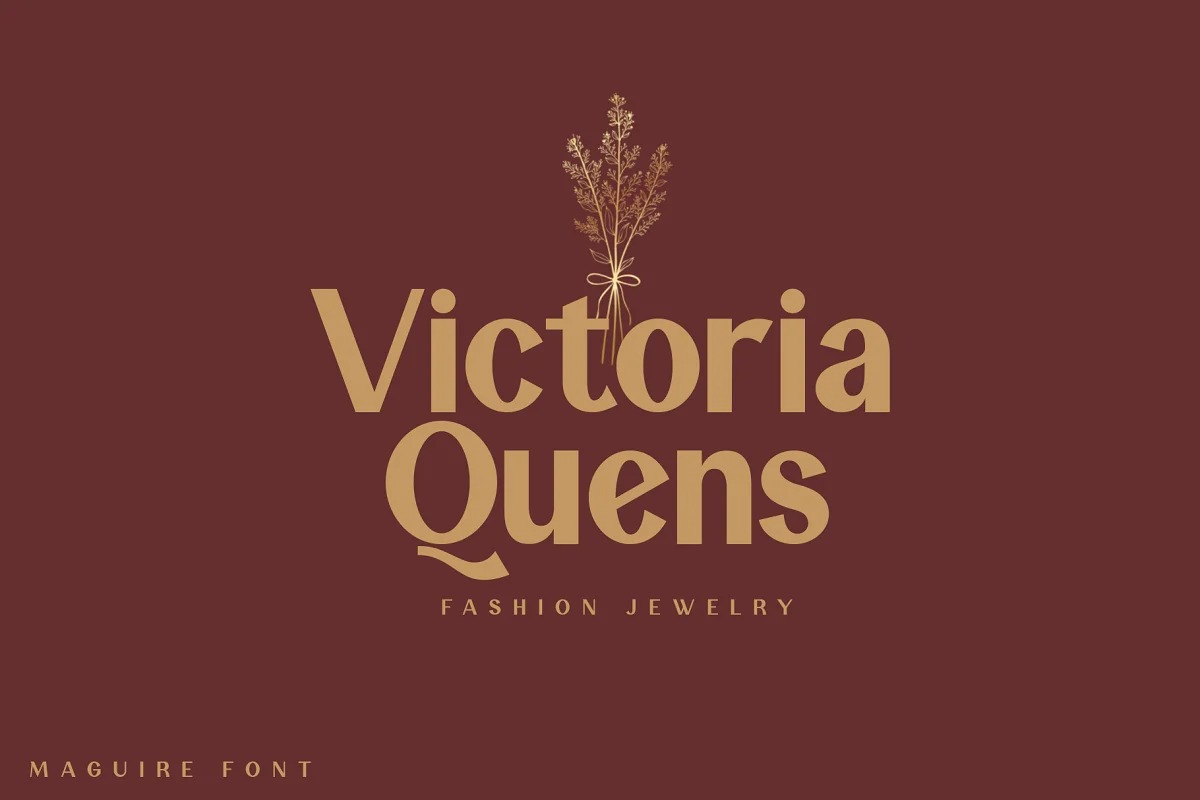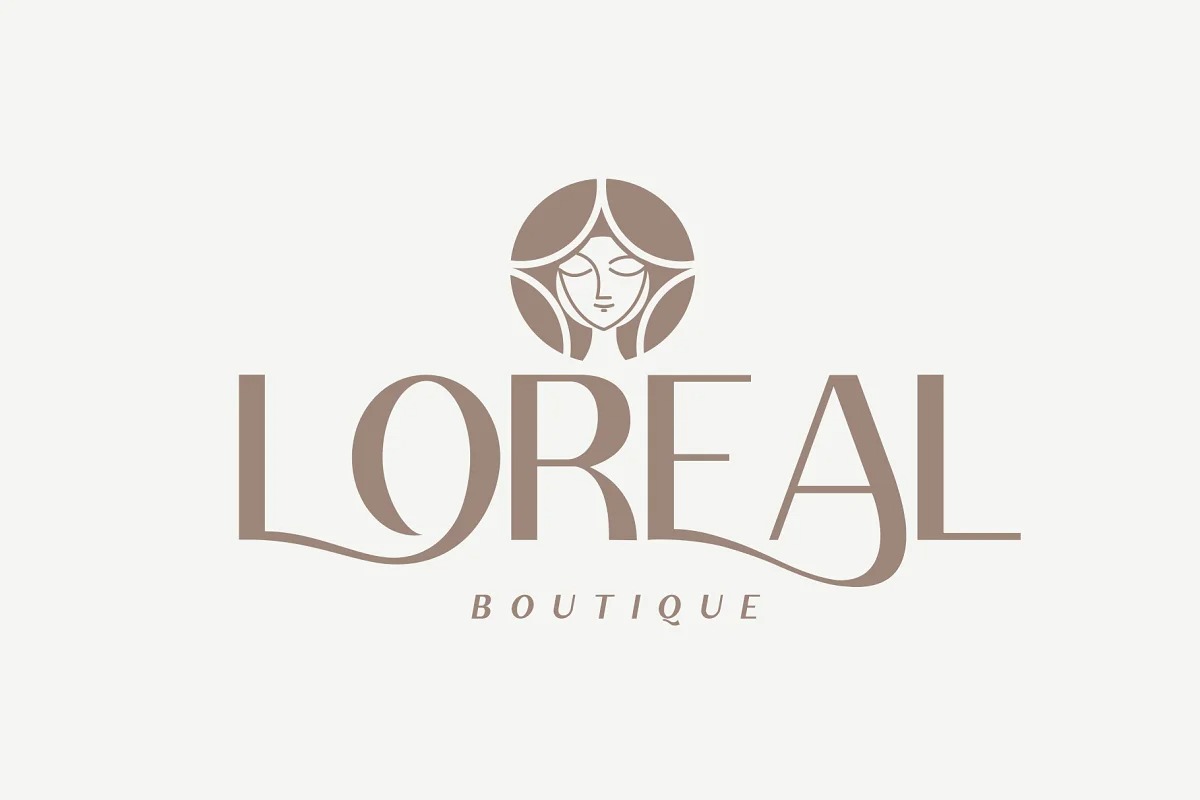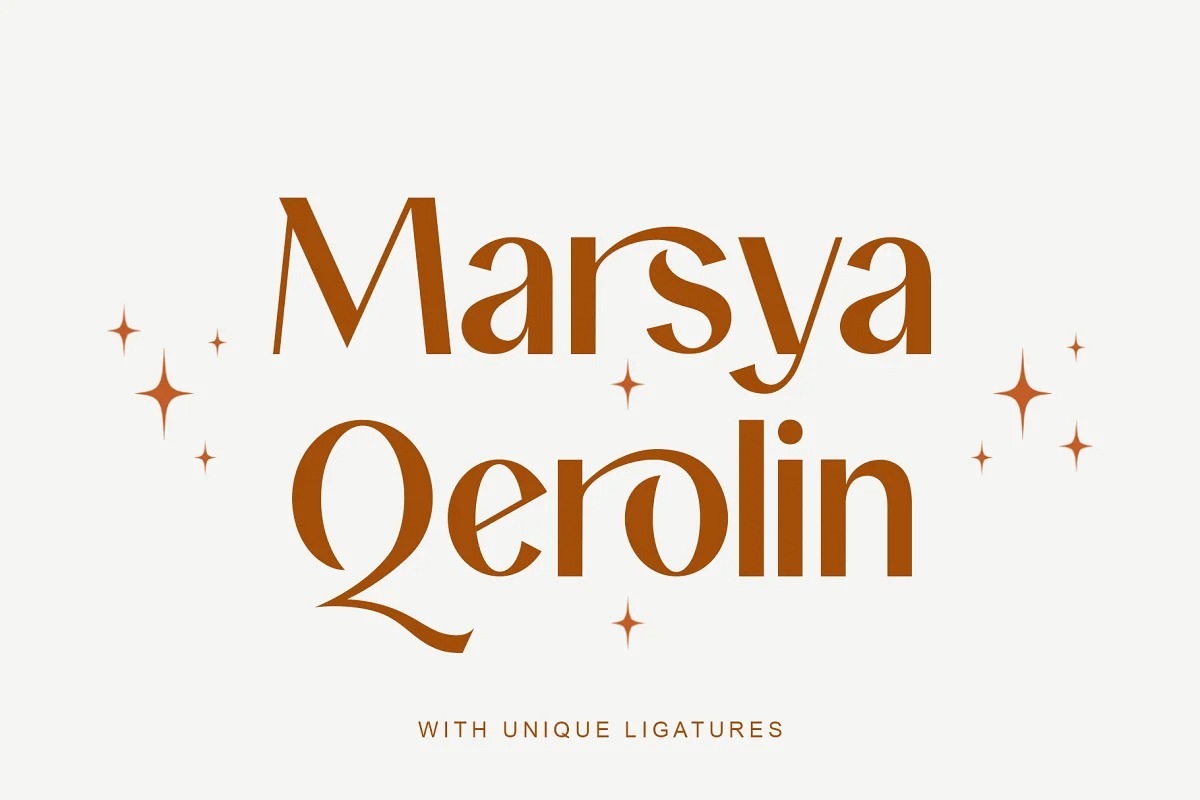
Maguire Font
Maguire Sans Serif Font
This typeface designed by Sealoung is a minimalist sans serif font, created with geometric shapes and fancy double-strokes letterforms. It’s a very versatile font that works great in large and small sizes. Maguire is perfect for branding projects, Logo design, Clothing Branding, product packaging, magazine headers, or simply as a stylish text overlay to any background image.